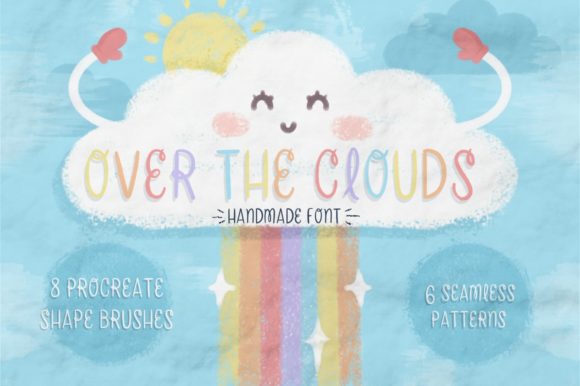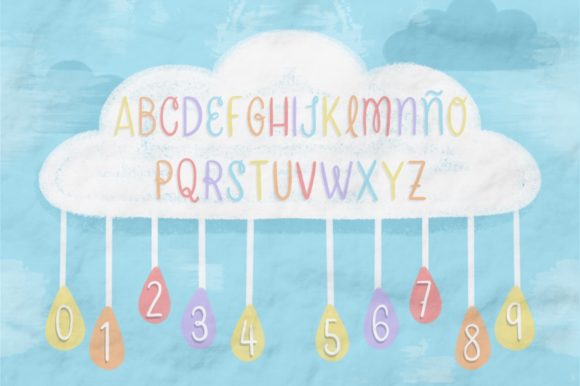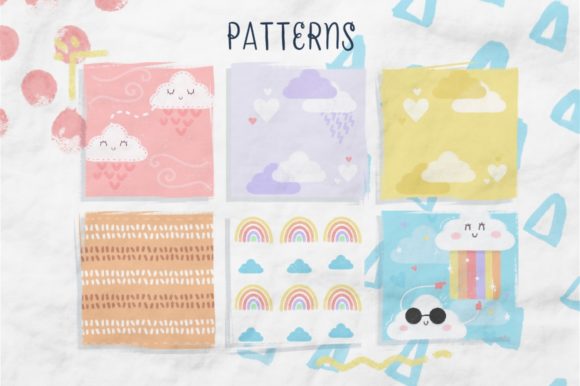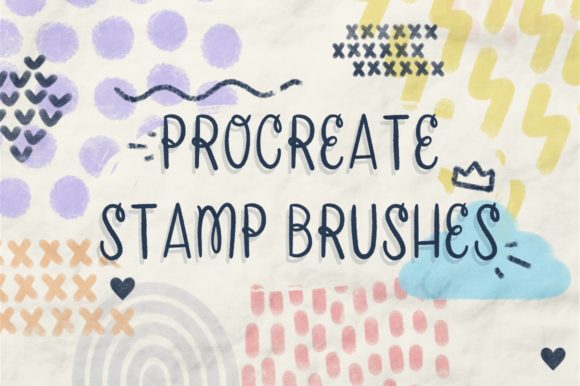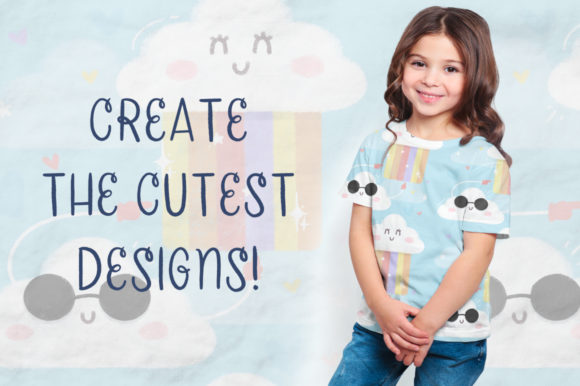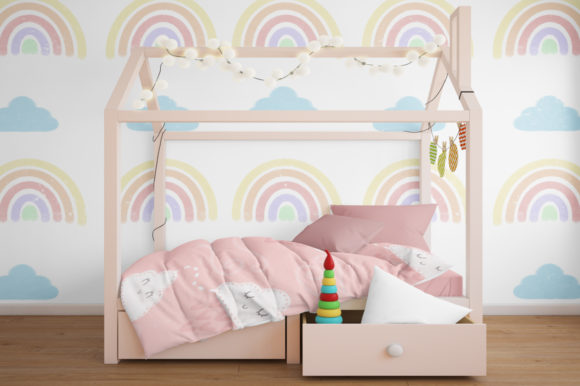
Over the Clouds Font
About Over the Clouds Font
Over The Clouds is a handmade playful font with a childish style that can brighten up any design and help you create the most beautiful products!